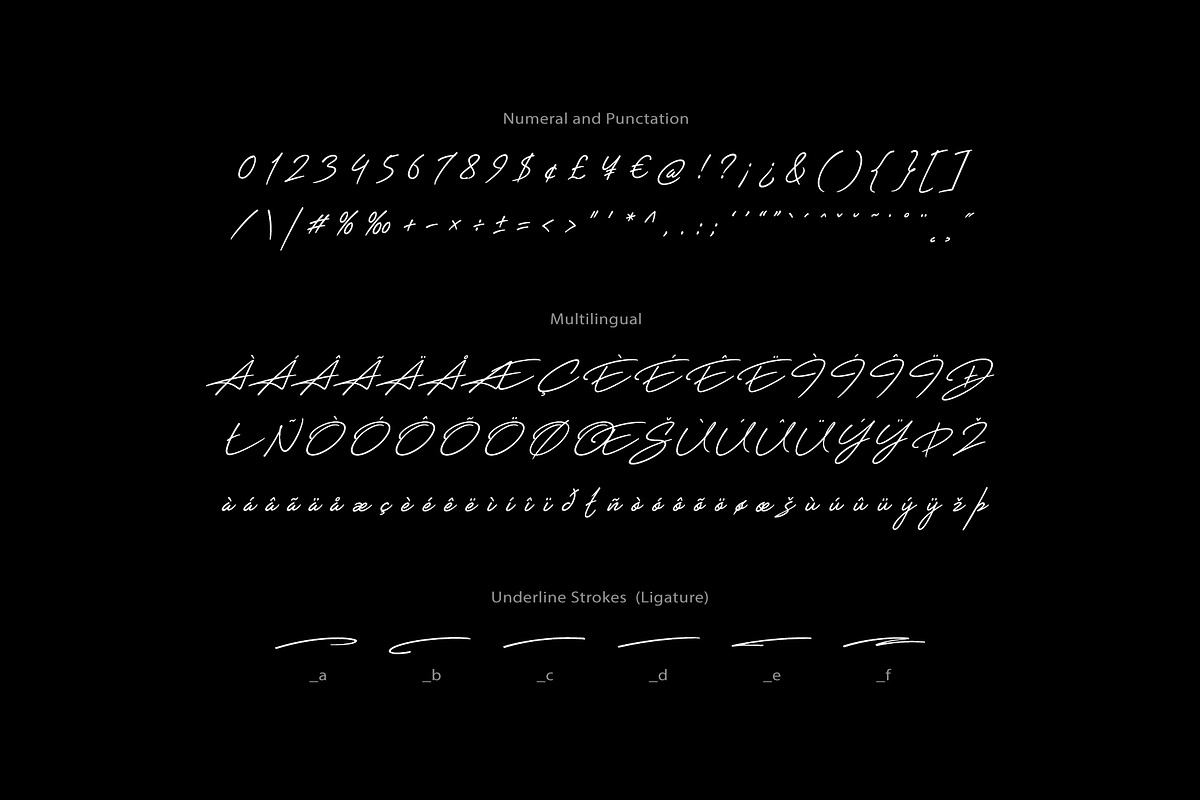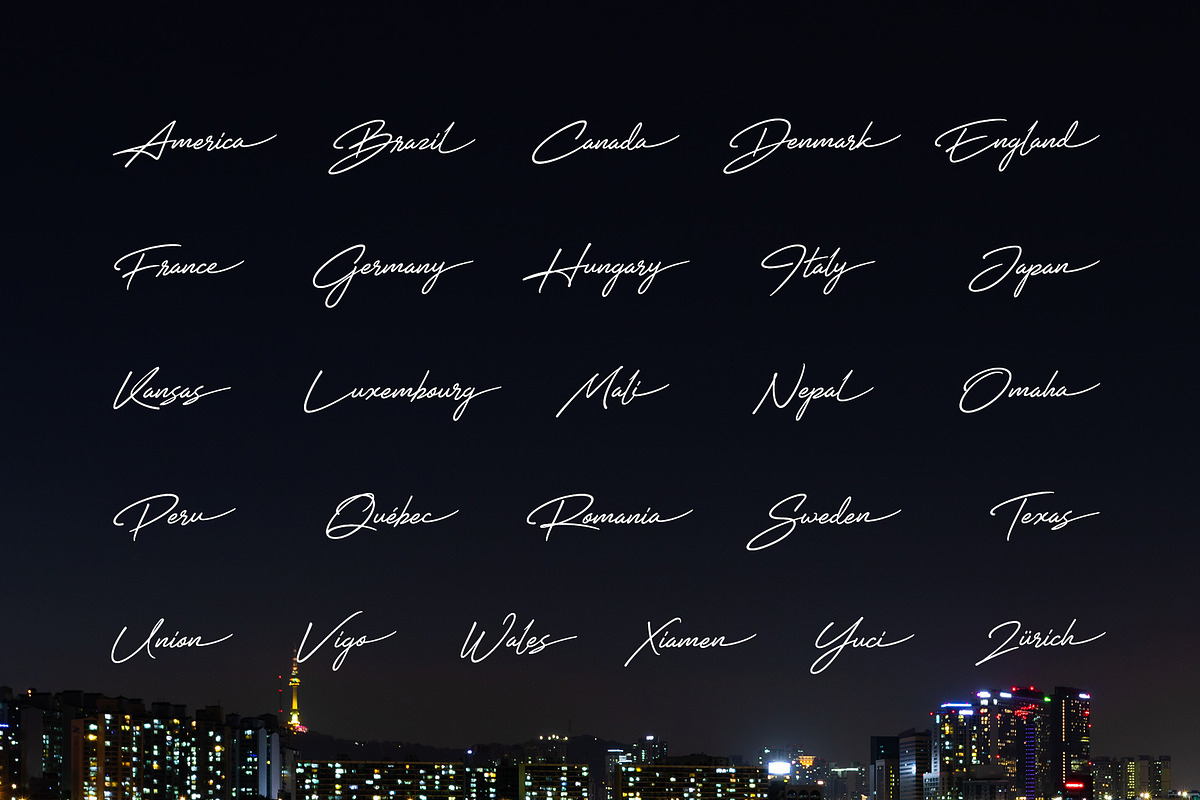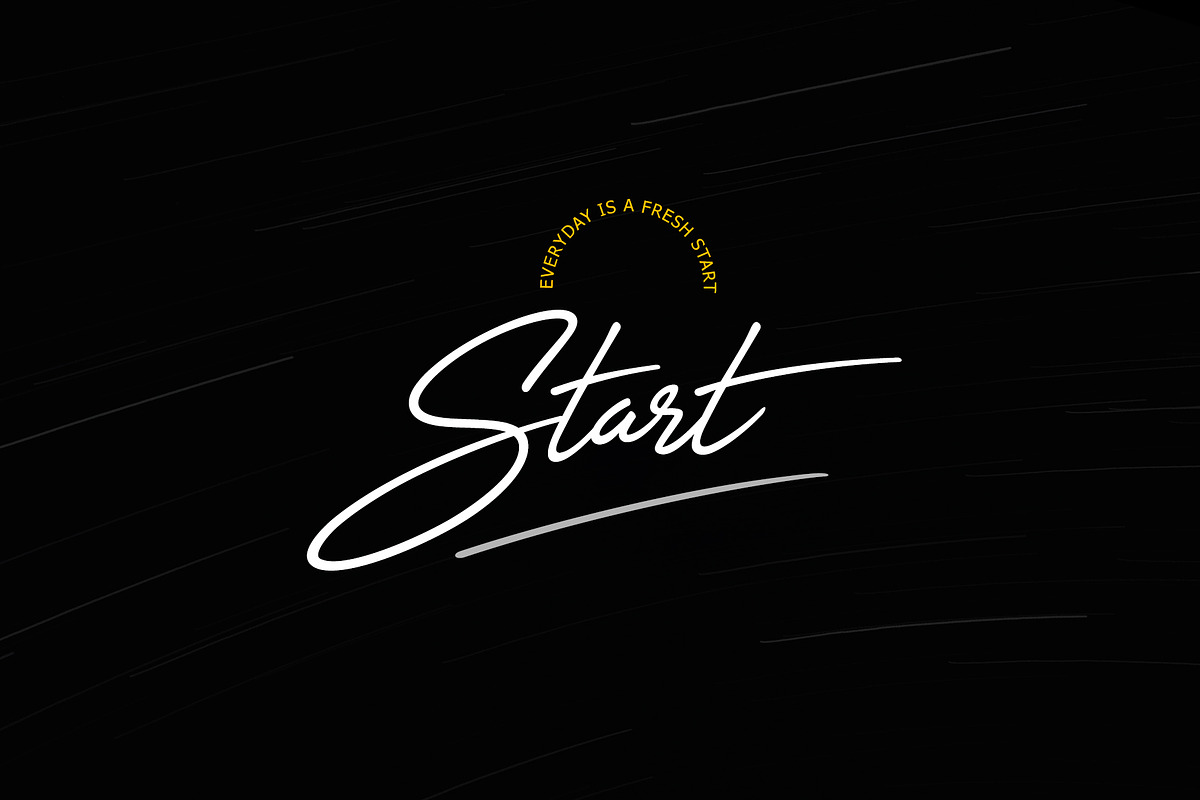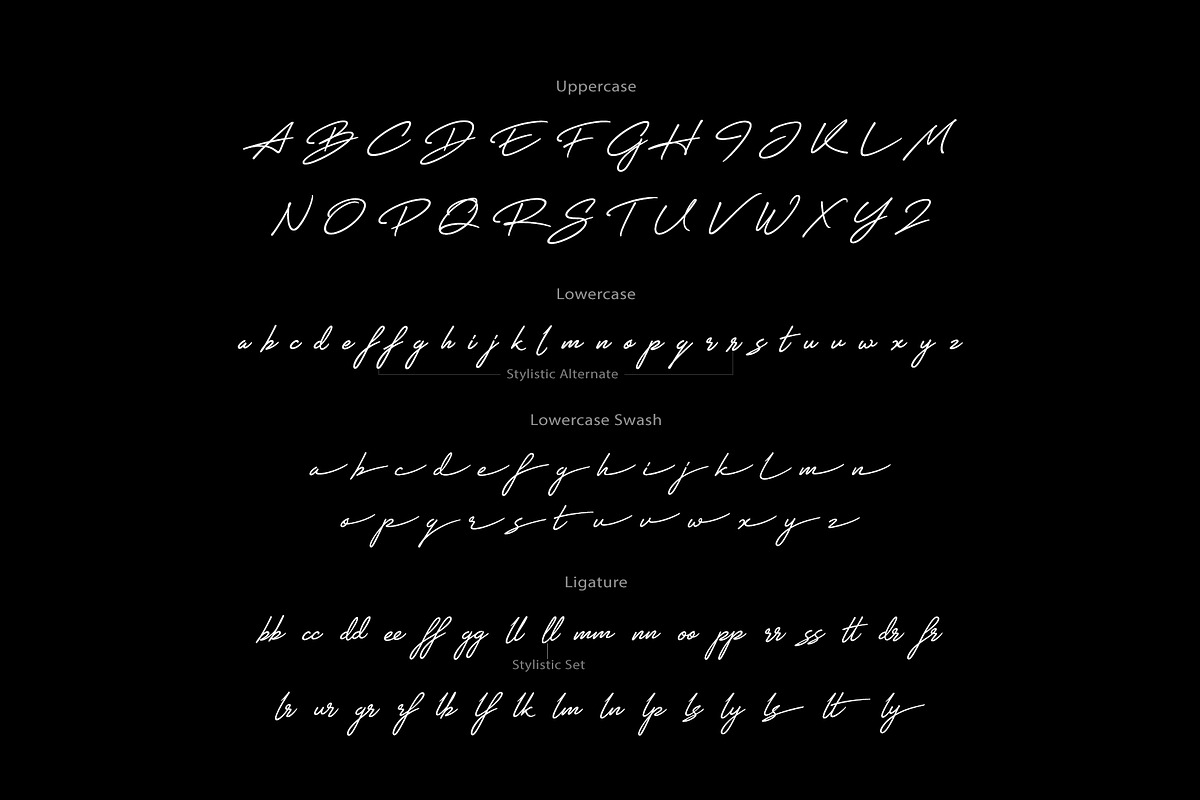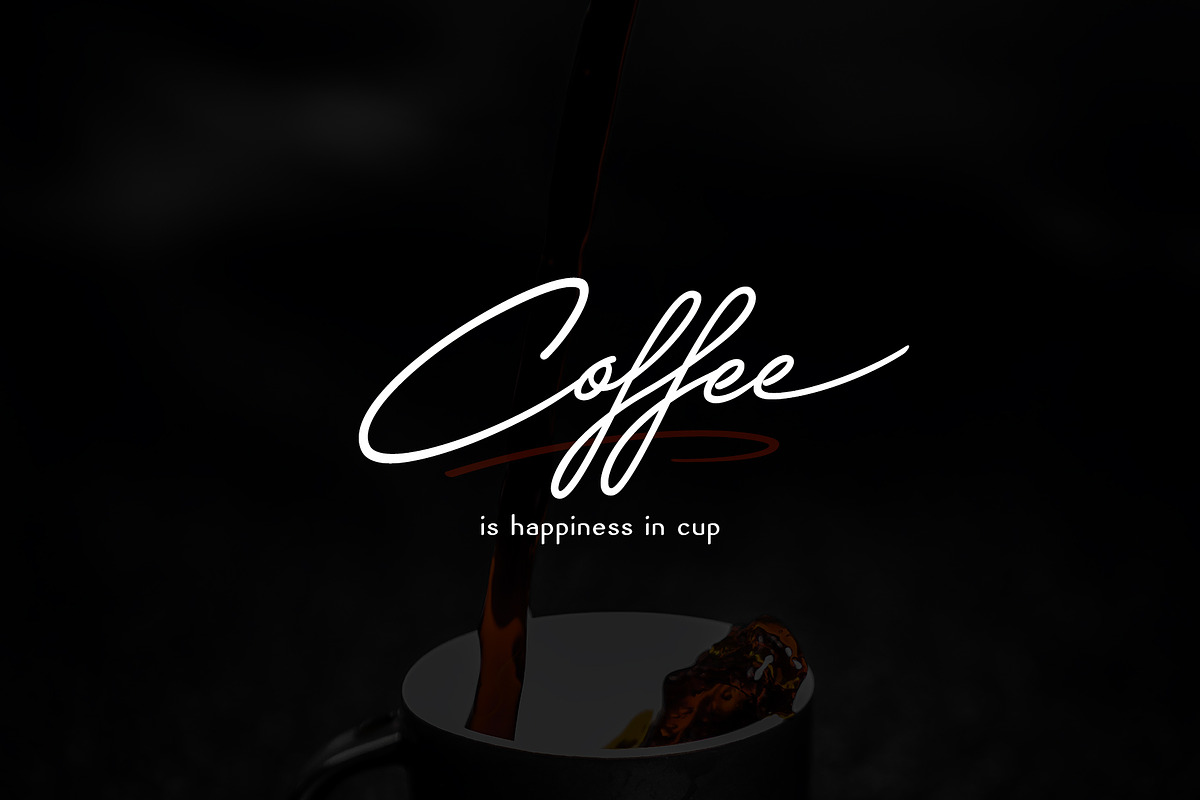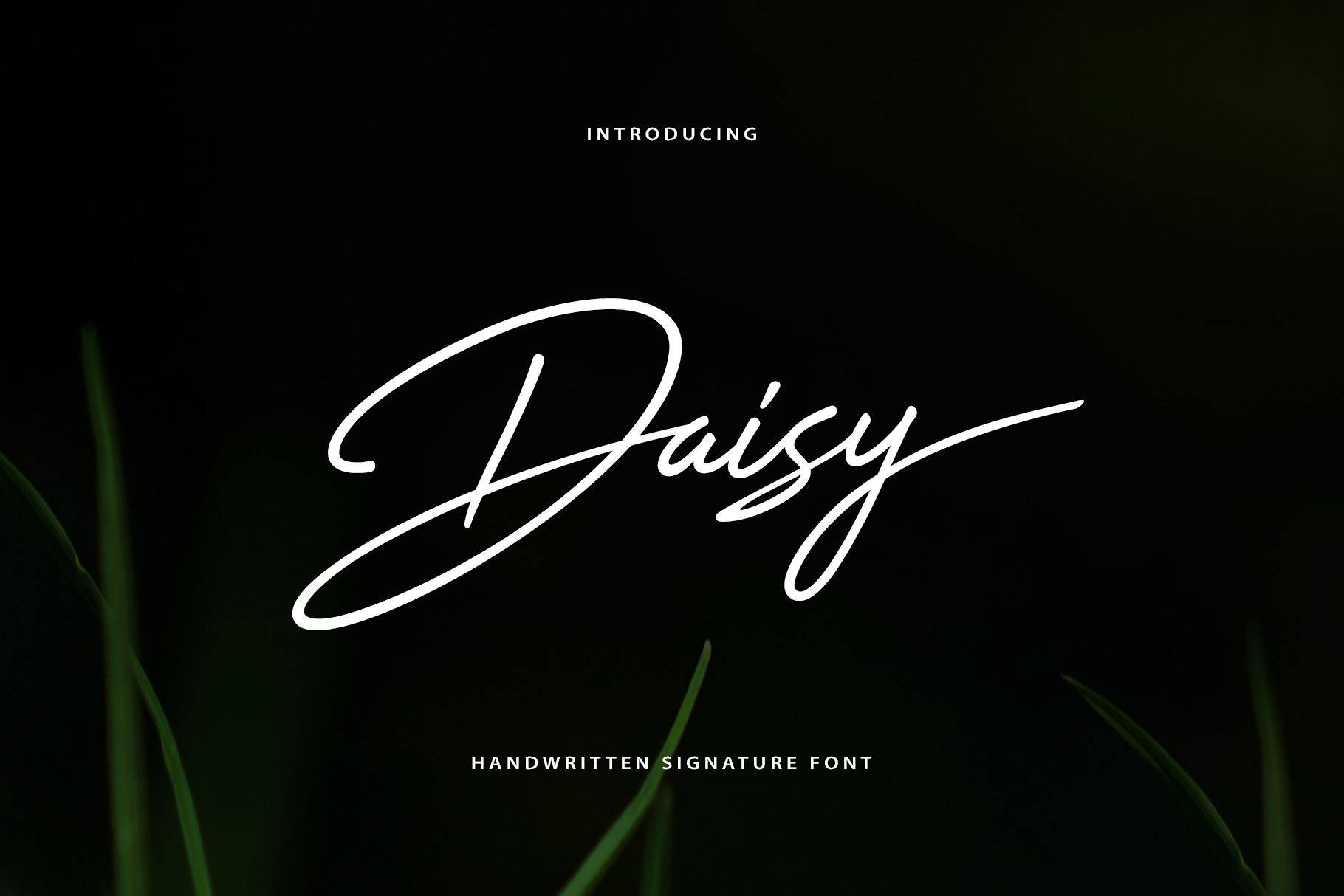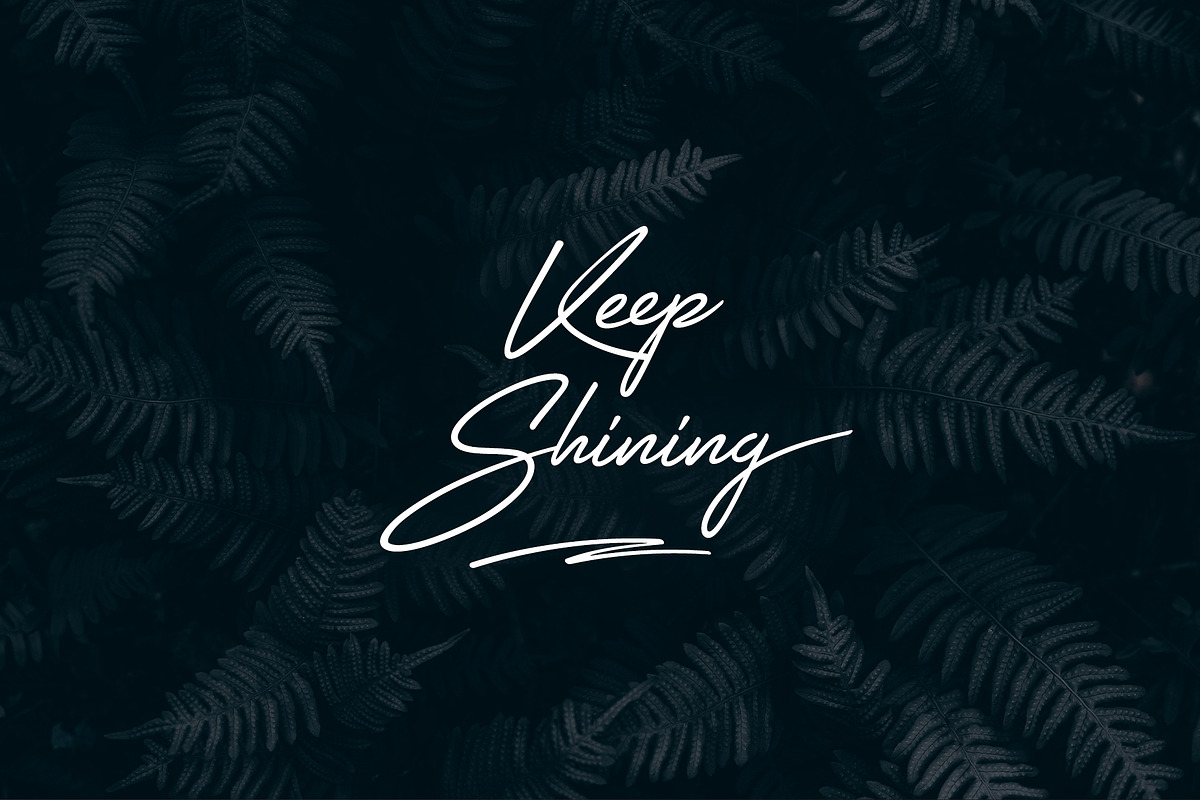
Daisy Handwritten Font
Daisy is a nice handwritten signature font. It gives a complete authentic feel on your text.
Total 265 glyphs available including alphabets, numerals, punctuation, ligature, stylistic alternaet, swash and multilingual characters.